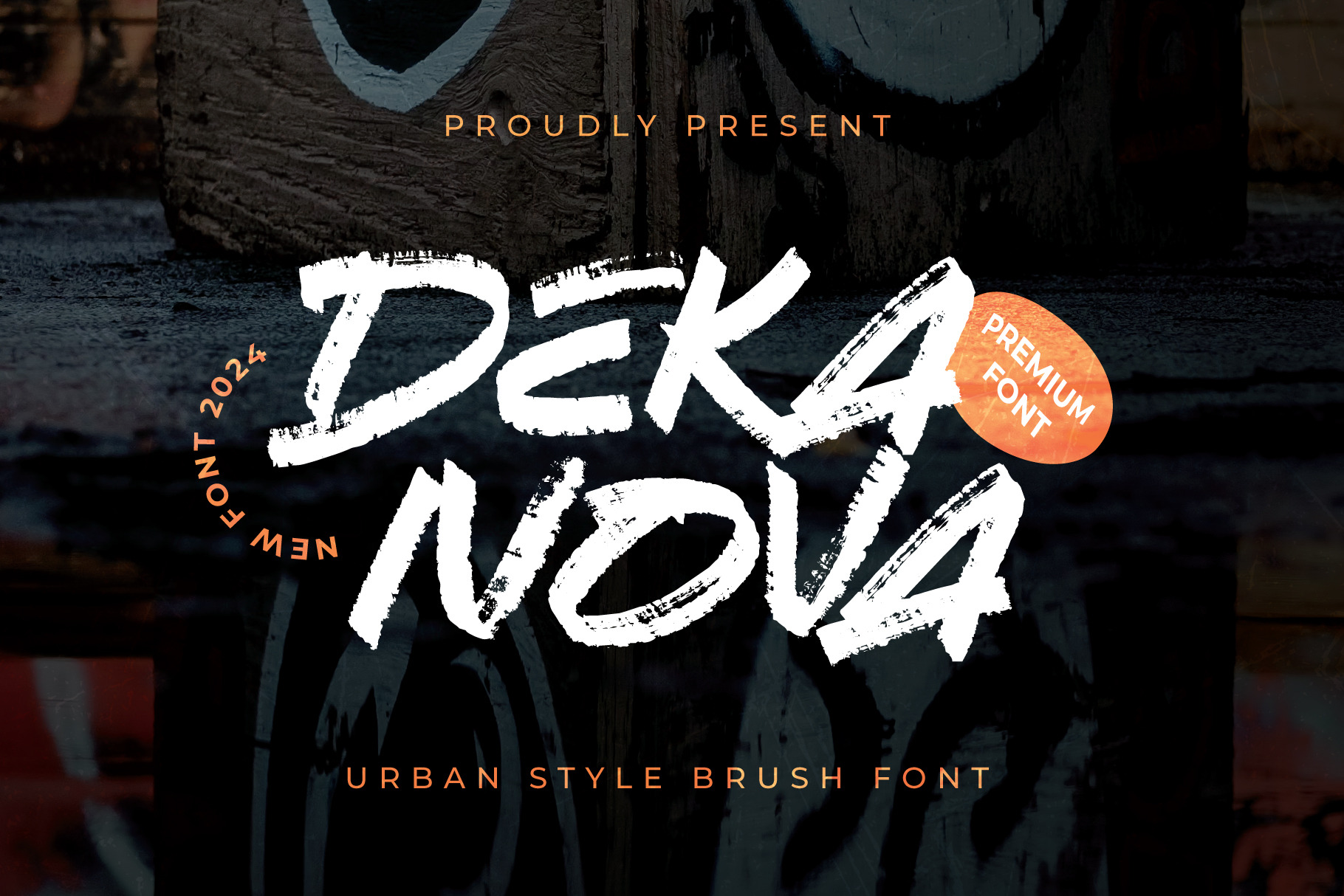
Dekanova - Brush Font
Introducing DEKANOVA – Your Ultimate Brush Font
DEKANOVA is not just a font; it’s a brushstroke masterpiece crafted to elevate your designs to the next level. With its dynamic brush style, this font brings a unique flair to any project, whether it’s branding, packaging, posters, or social media graphics.
Featuring a plethora of features, DEKANOVA ensures that your creative journey is smooth and effortless:
- Ligatures: Seamlessly connect letters for a fluid and natural look.
- Alternatives: Experiment endlessly with various letterforms to find the perfect fit for your design.
- Multilingual: Break language barriers and communicate globally with ease.
- Upper Case & Lowercase: Versatile usage for diverse design needs.
- Punctuation: Precise punctuation marks to punctuate your message effectively.
This font is perfect for:
- Branding materials
- Product packaging
- Social media graphics
- Poster designs
DEKANOVA is your go-to choice for projects that demand creativity, flexibility, and style. Elevate your designs today with DEKANOVA and let your imagination run wild.